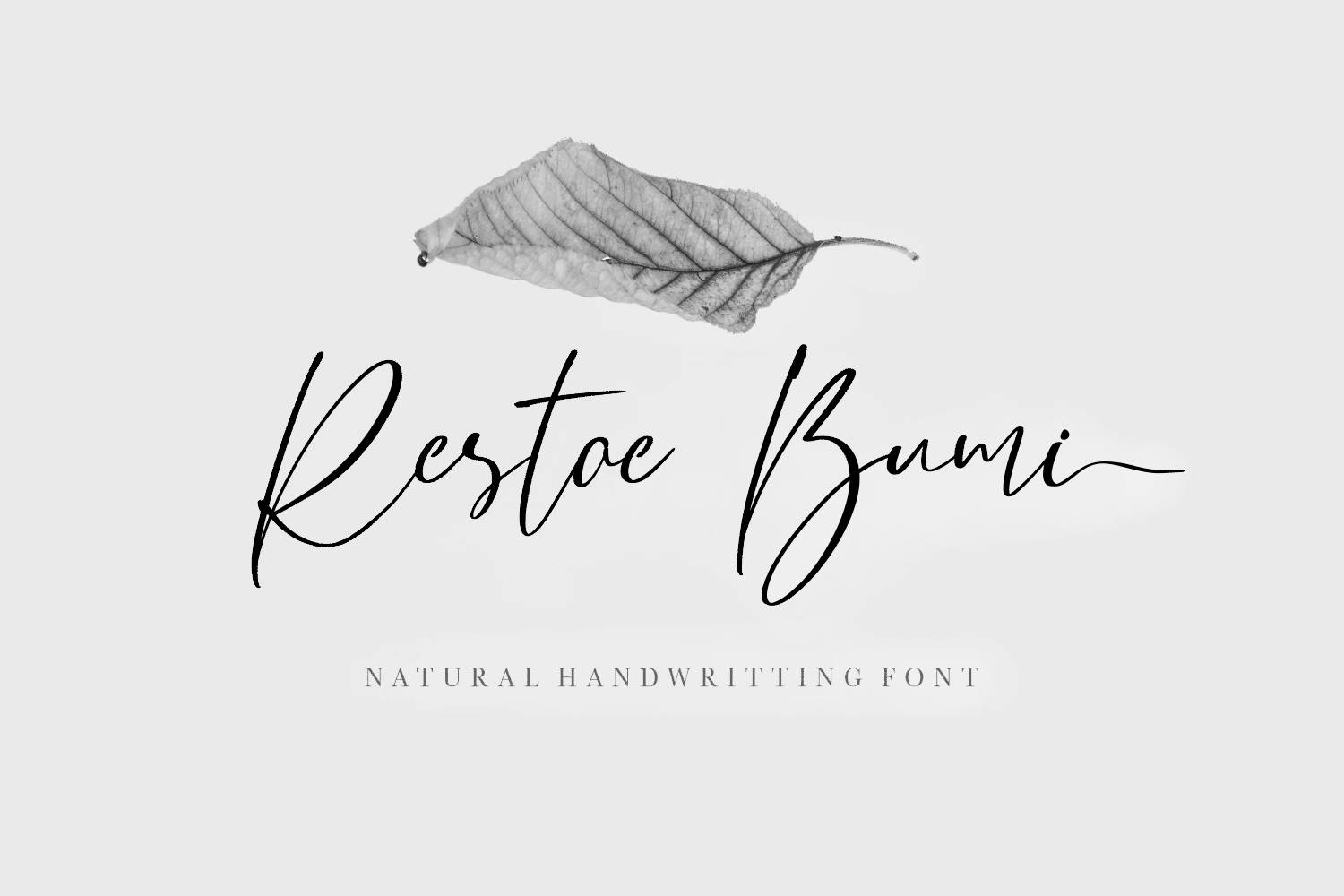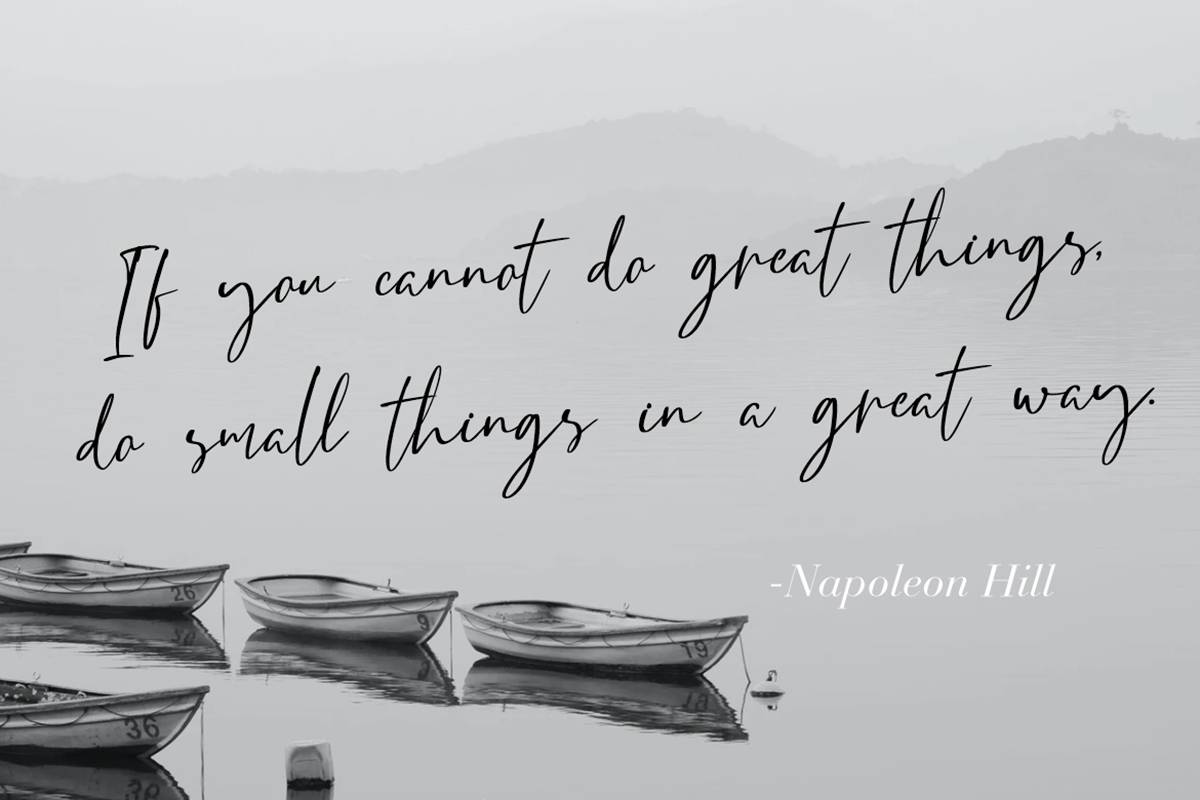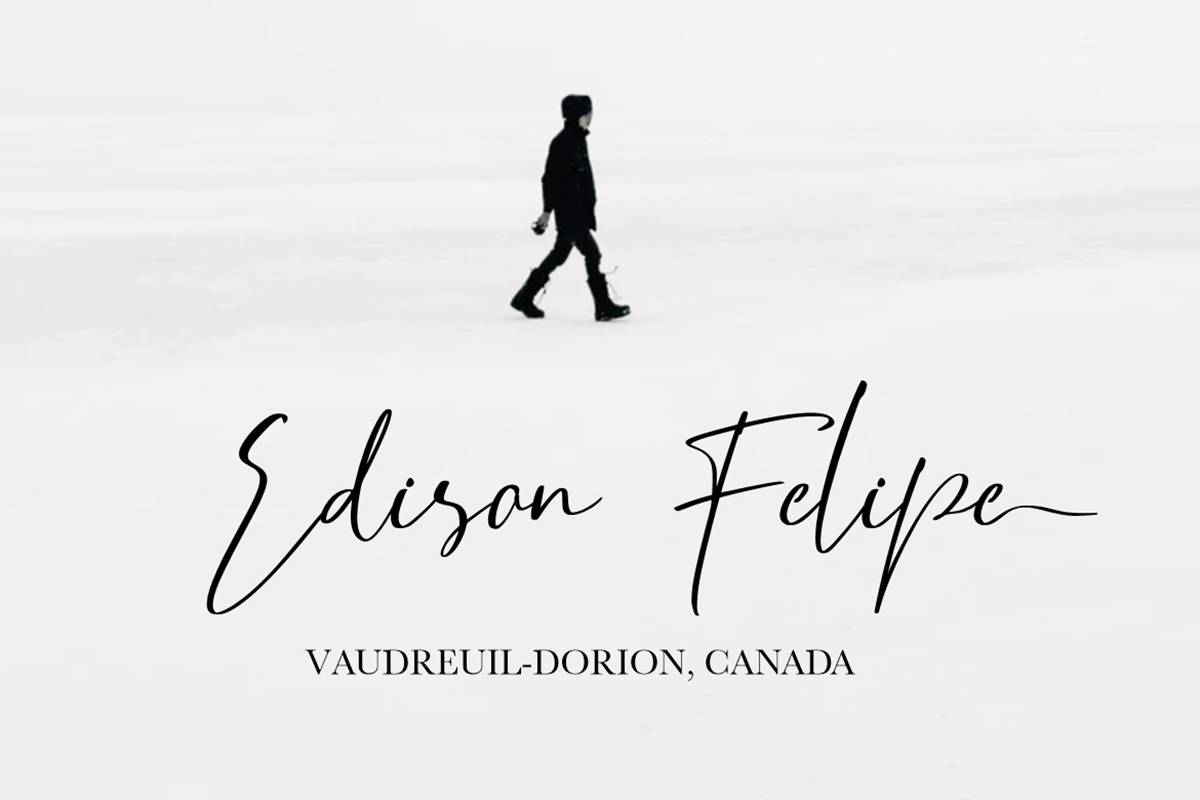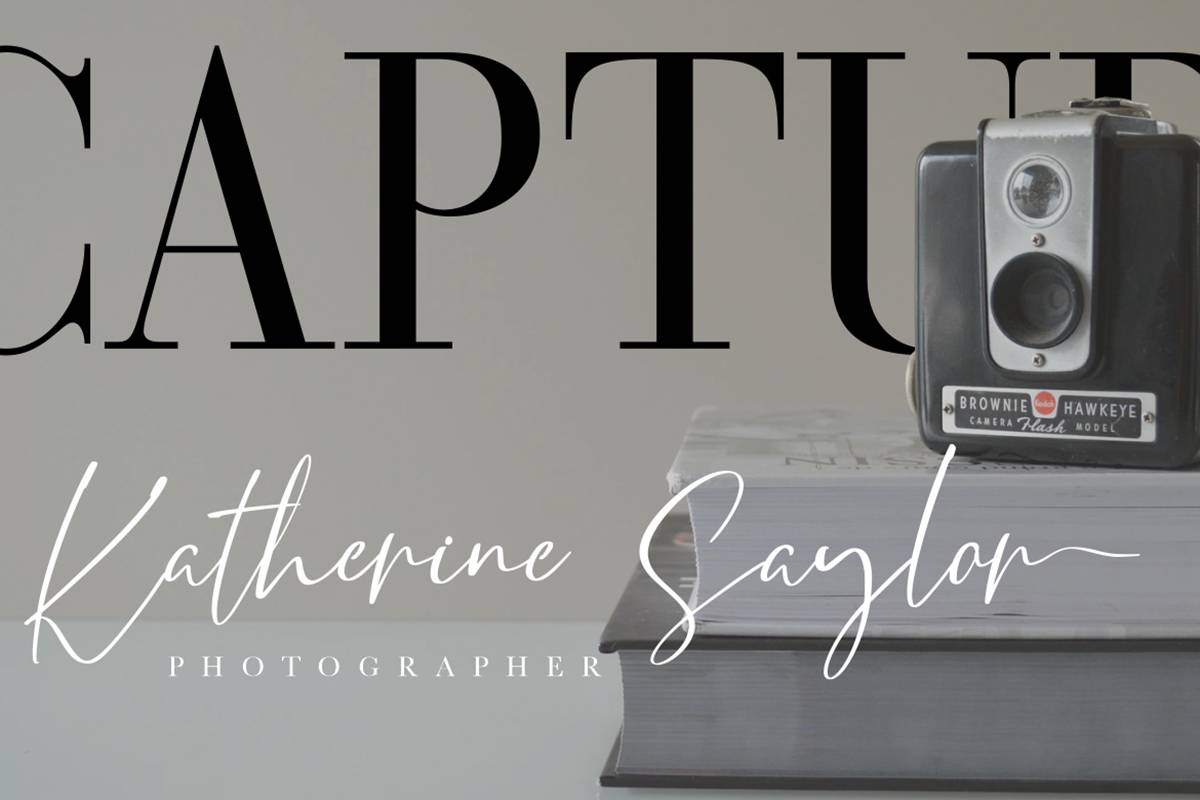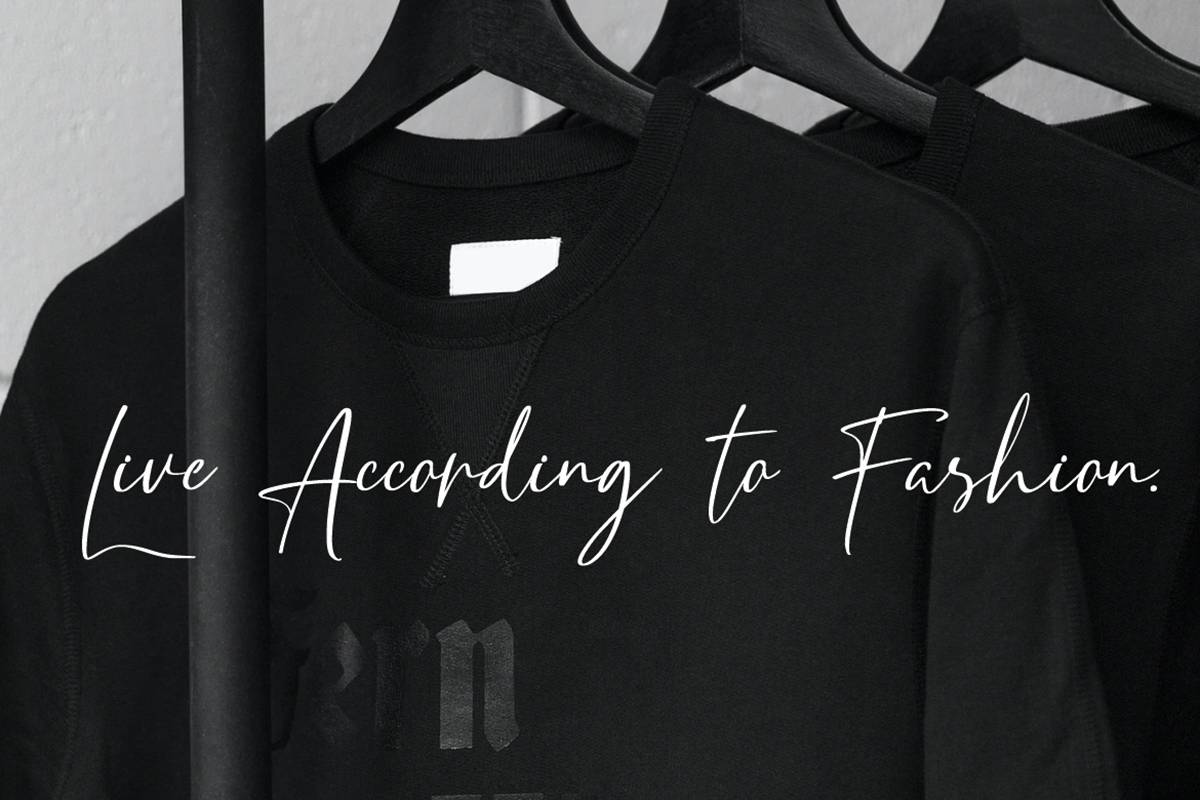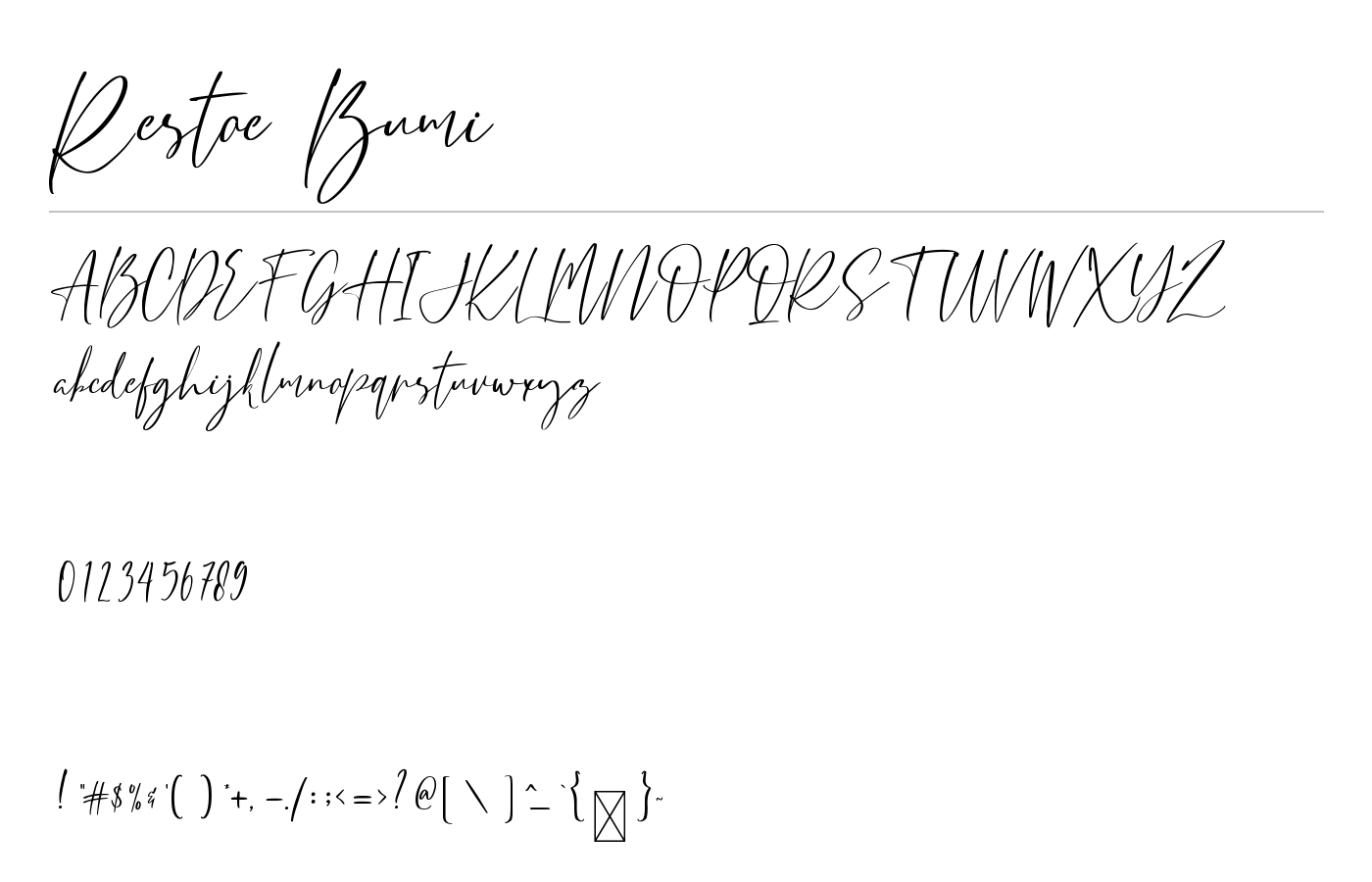
Restoe Bumi is a delicate, modern script font characterized by its slender, flowing strokes and elegant handwritten style. Its tall, narrow letterforms with varied stroke weights convey a refined yet approachable personality, making it perfect for fashion, beauty, and lifestyle branding or sophisticated invitations. This font excels in creating an intimate and graceful atmosphere, ideal for logos, headlines, and decorative text where a personal and stylish touch is desired.
Restoe Bumi Font
About Restoe Bumi Font
| Font family | Restoe Bumi Font |
| Designer | Burhan Afif |